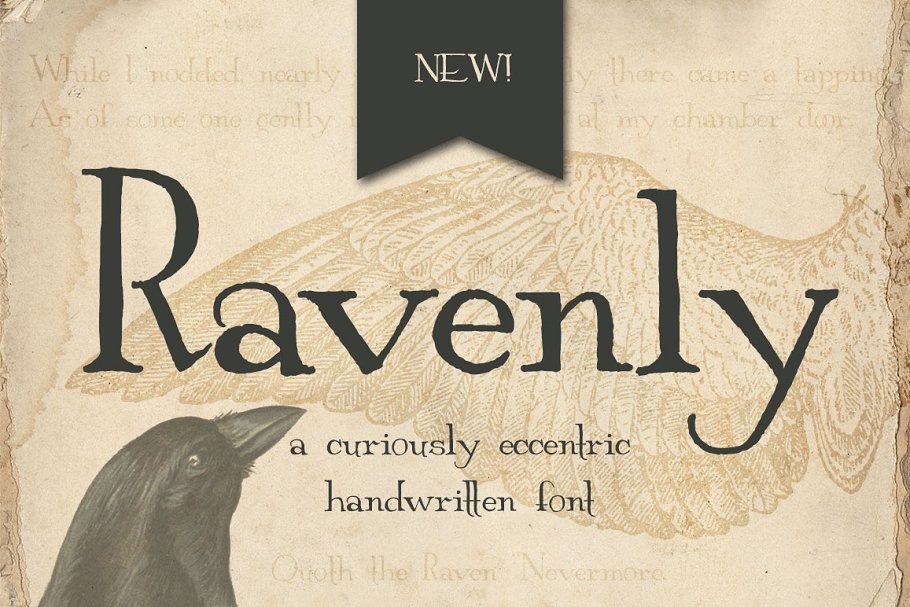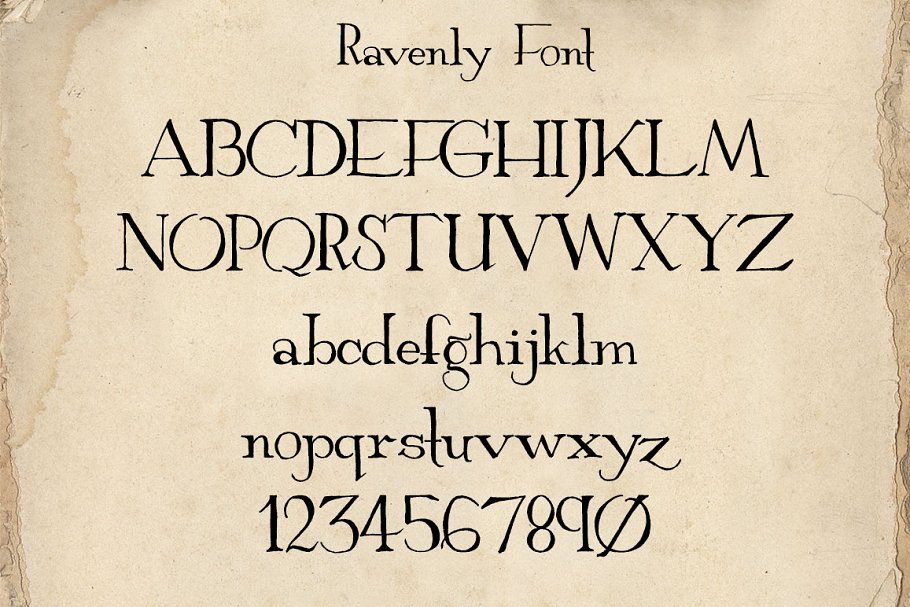
About the Ravenly Hand Written Font
Ravenly is a handwritten serif font that is curious and quirky with a vintage style, OTF, 338 glyphs (letters, numbers, punctuation, symbols) with multi language support, This font is great for logos, posters, invitations, and more,